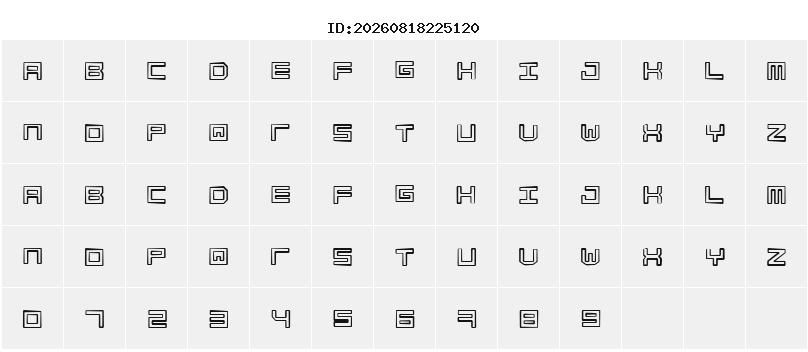
• Font Name: Simply Mono Dirty
• Designer: La Tipomatika
About Simply Mono Dirty.ttf
Simply Mono Dirty.ttf is a modern, elegant sans-serif font designed for ultimate readability and visual harmony. Perfect for branding, headlines, web design, and print materials.